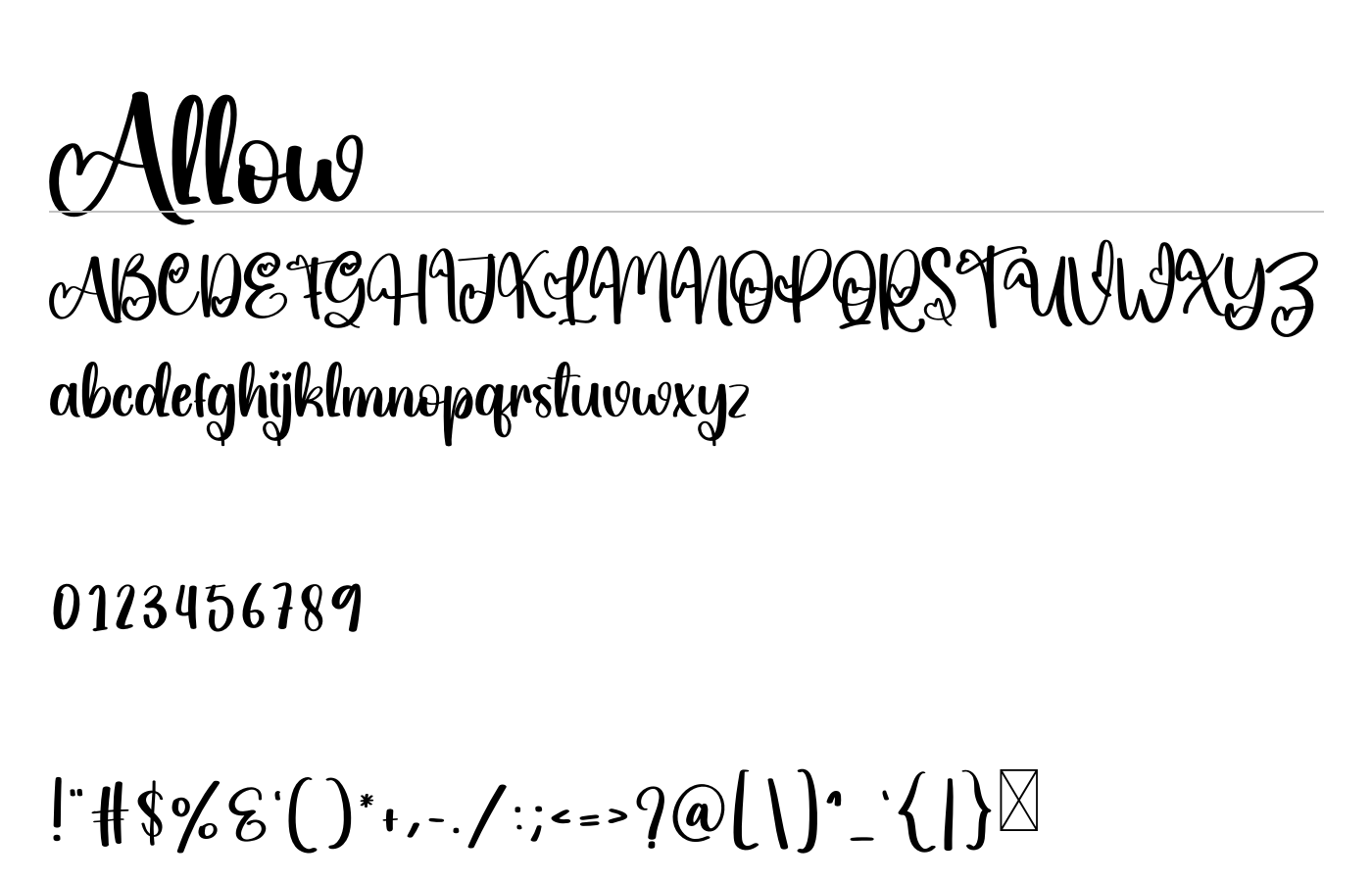
Allow Font is a lively and decorative script typeface with playful, looping uppercase letters and a more readable, casual lowercase set. Its smooth, flowing strokes paired with whimsical curls give it a friendly, artistic vibe perfect for creative projects, invitations, and branding that seeks a personal, handcrafted feel. This font works best in headlines, logos, and designs looking for a touch of charm and personality rather than dense body text.
Allow Font
About Allow Font